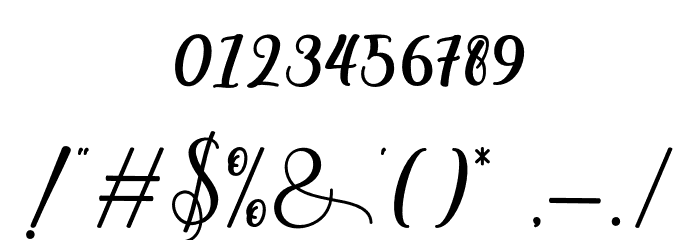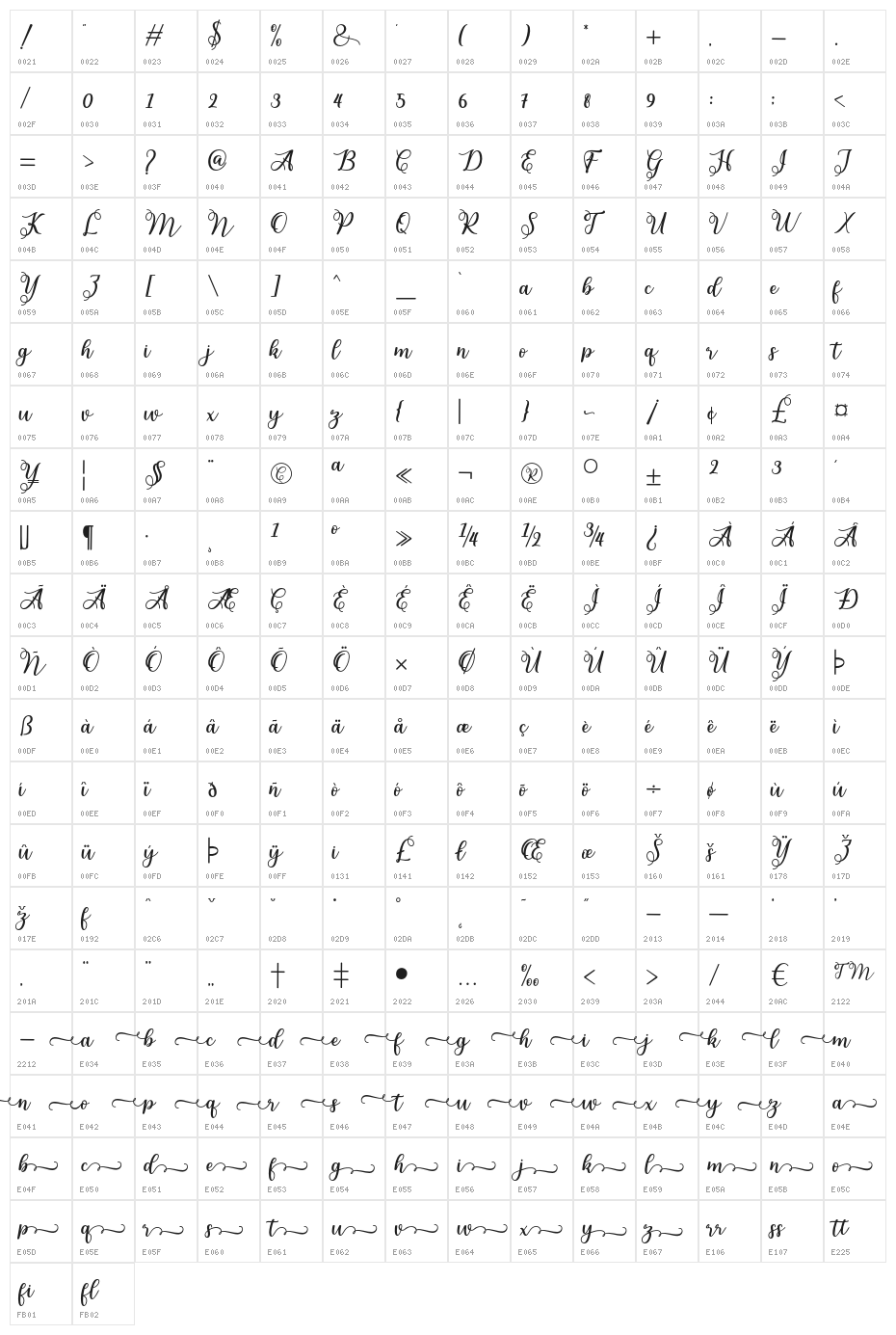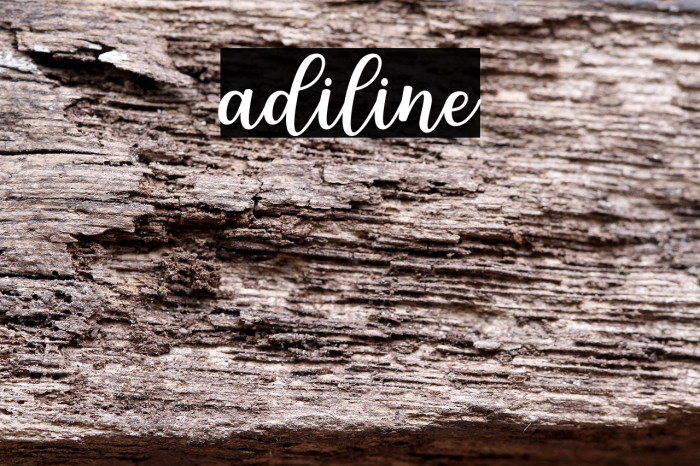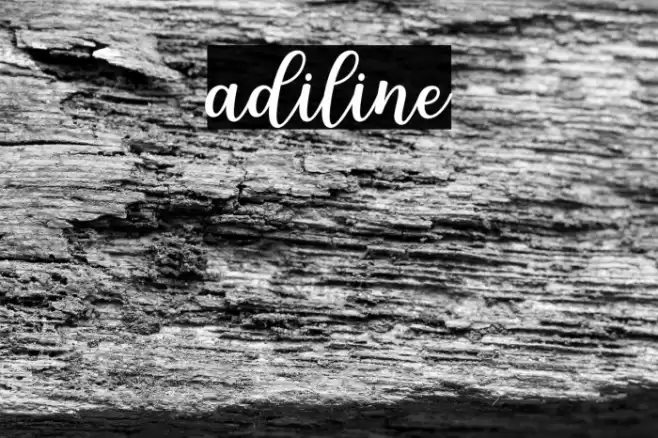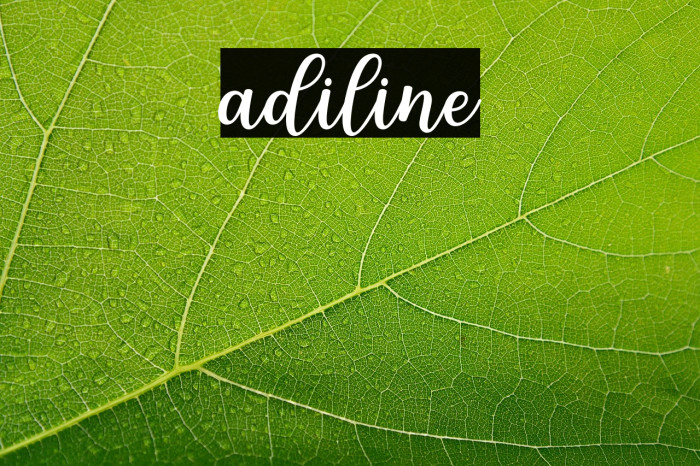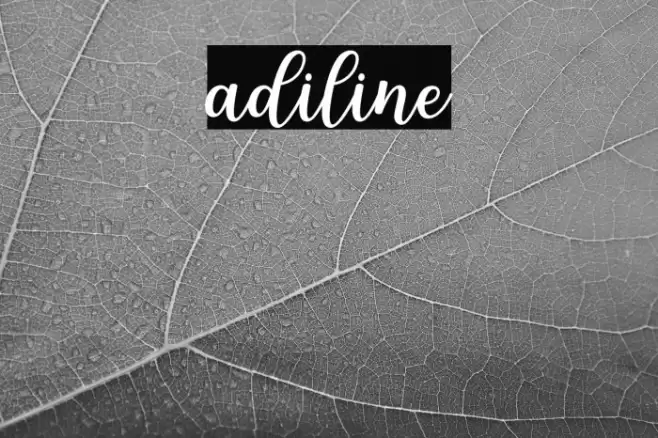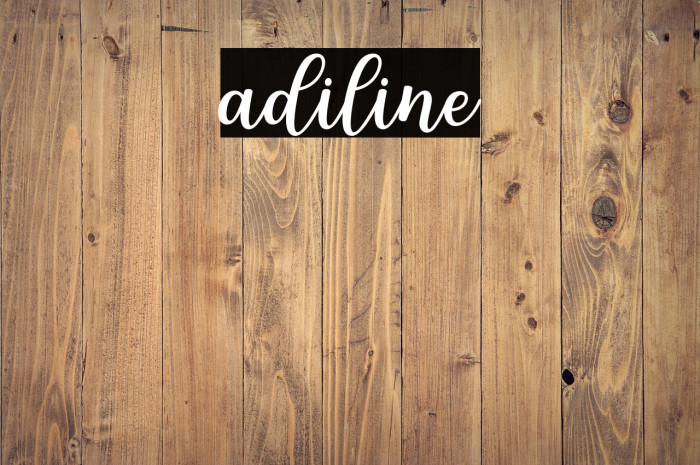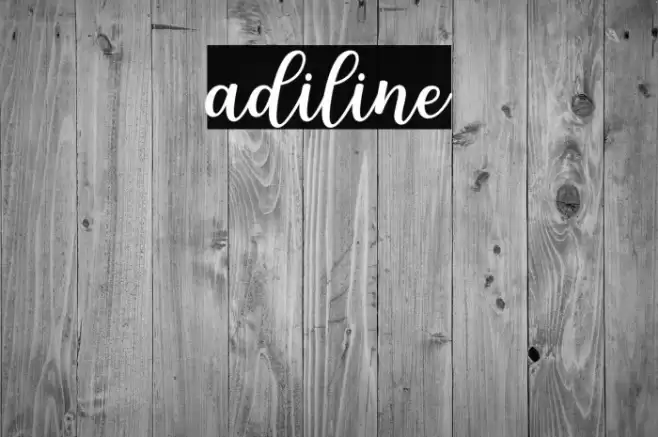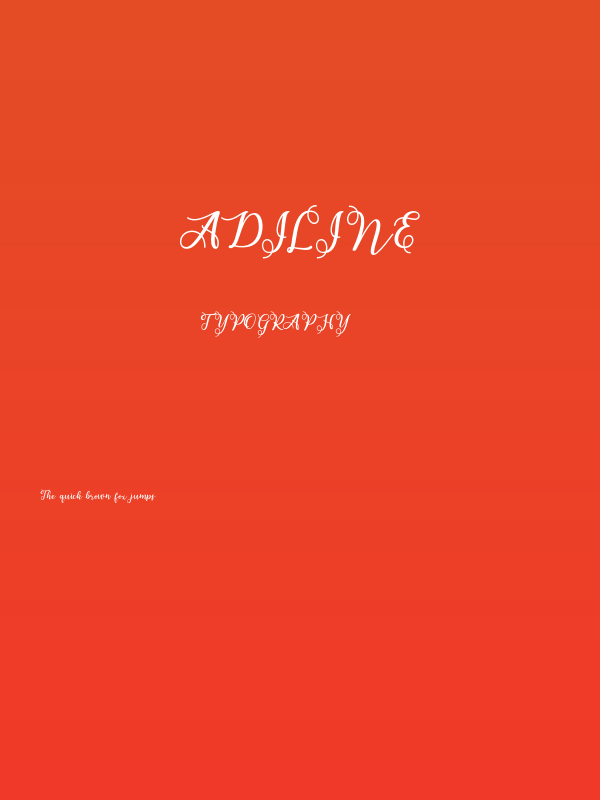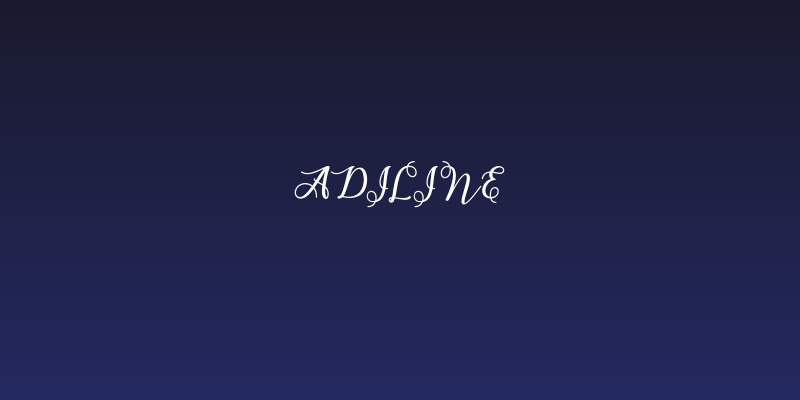
adiline Font
This elegant script font features a flowing, cursive style with intricate loops and flourishes, giving it a sophisticated and artistic appearance. The uppercase letters are particularly ornate, with decorative swirls that add a touch of elegance and charm. The lowercase letters maintain a smooth, connected flow, enhancing readability while preserving the font's artistic flair. The numerals are consistent with the overall style, offering a cohesive look. Special characters are designed with similar attention to detail, ensuring they blend seamlessly with the rest of the font. This font is ideal for projects that require a touch of elegance and sophistication, such as wedding invitations, branding, and decorative designs.
An elegant script font with flowing, cursive style and intricate flourishes.
- Font: adiline
- Proposed Projects: Wedding invitations, branding, decorative designs, greeting cards, and elegant signage.
- Category: Script
- Overall Style: Elegant, Artistic
- Use Case: Headlines, Invitations, Decorative text